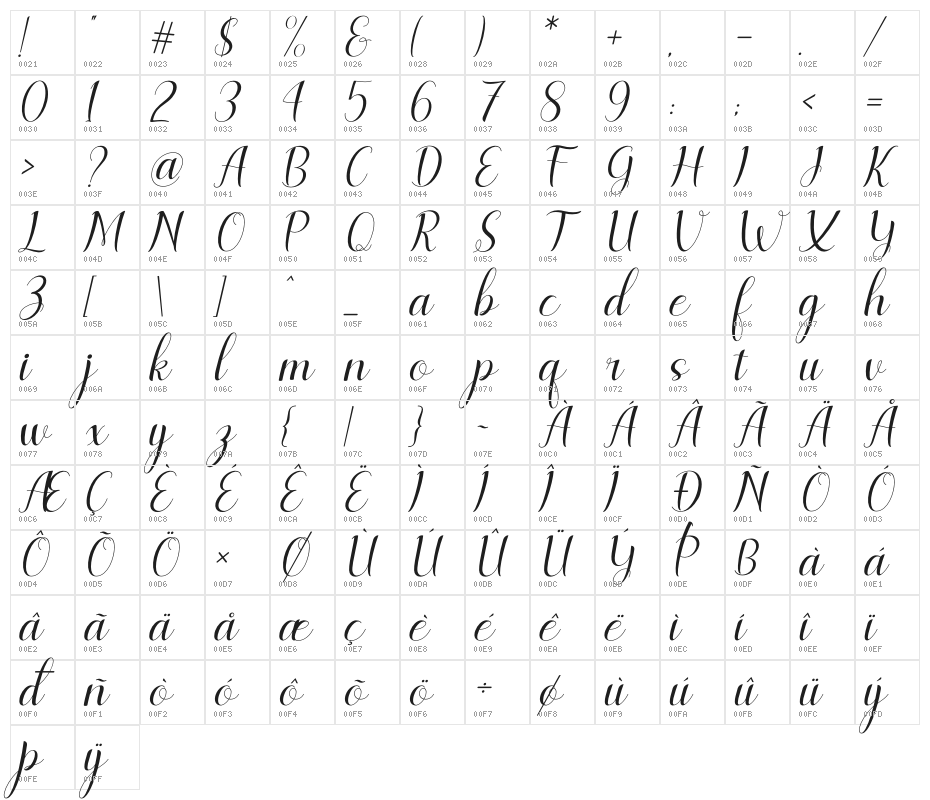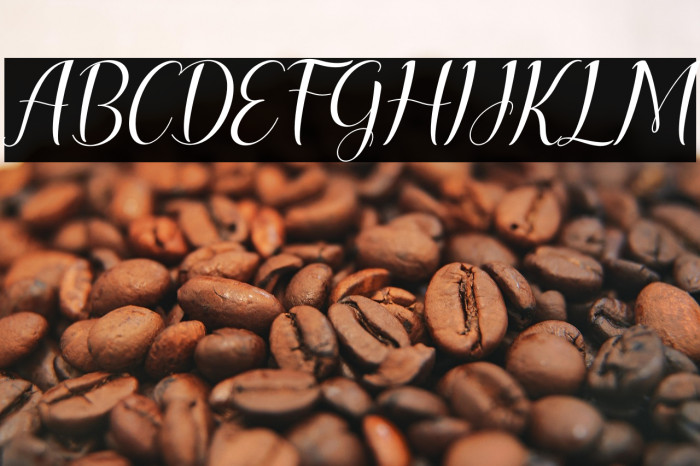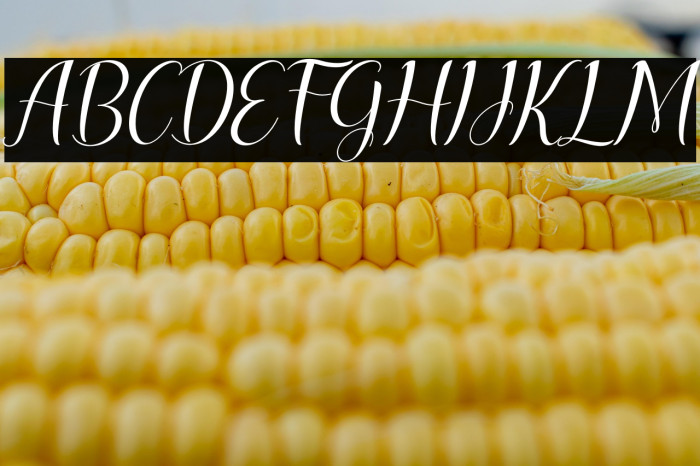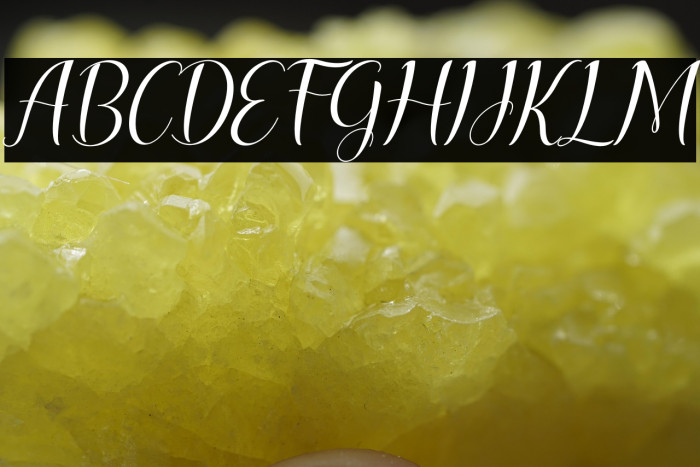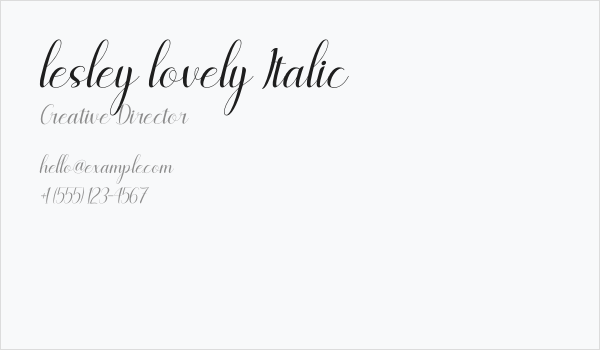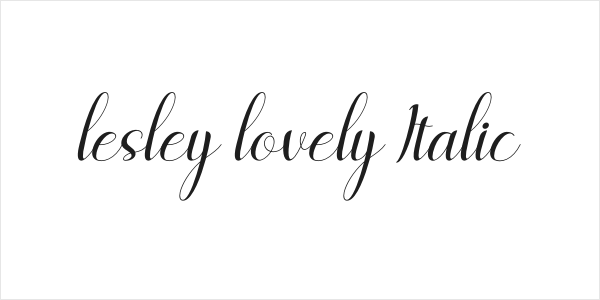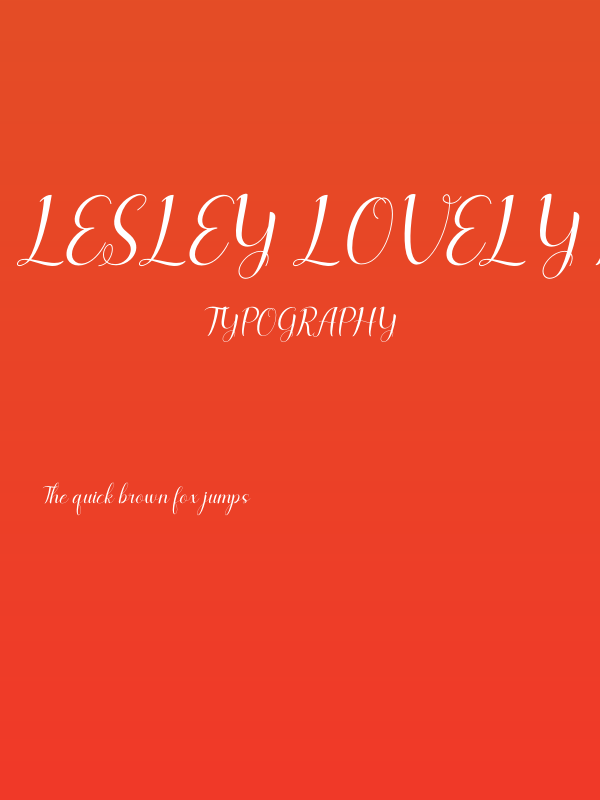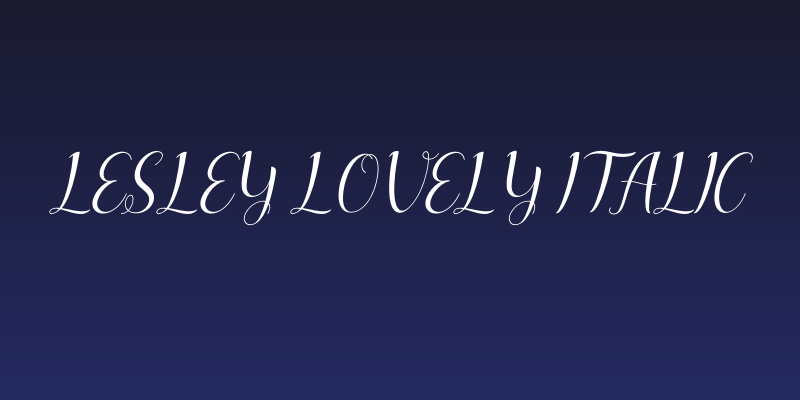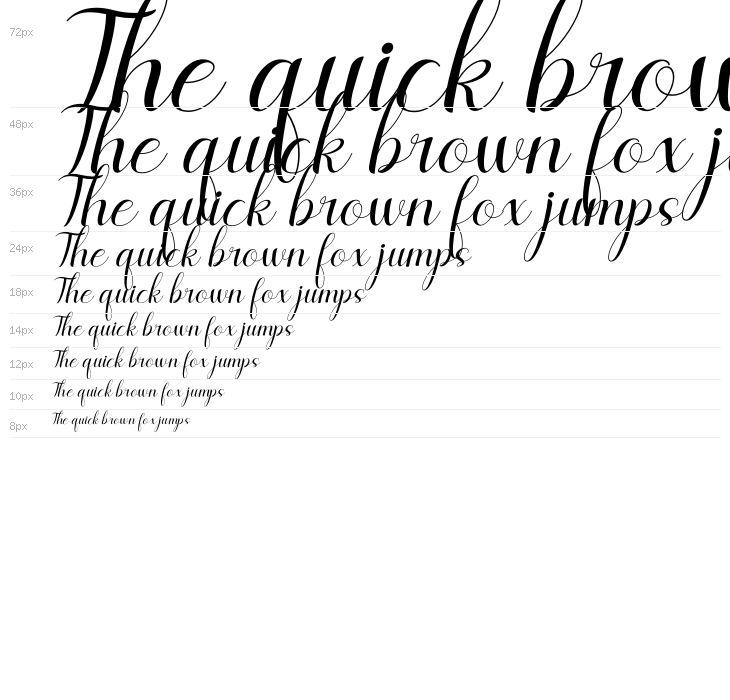
lesley lovely Italic Font
lesley lovely Italic Description
This elegant script font features flowing, cursive letterforms with a sophisticated and graceful appearance. The uppercase letters are characterized by their tall, slender shapes and delicate loops, while the lowercase letters maintain a consistent fluidity and rhythm. The numerals are stylish and complement the overall aesthetic, with a slight slant that enhances the italic nature of the font. The special characters are thoughtfully designed to match the elegance of the alphabet, making this font suitable for a variety of decorative purposes.